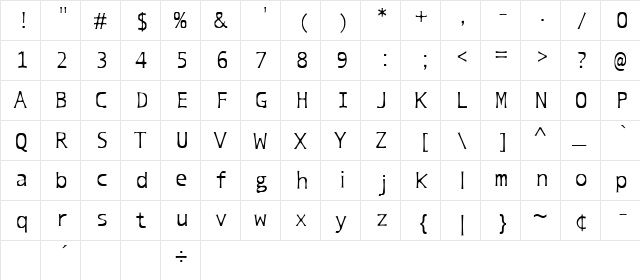
slightly warped Regular Font Preview
slightly warped Regular
slightly warped Regular Font Details
Design Context for slightly warped Typeface
slightly warped takes a measured approach to typography — its balanced proportions and neutral character make it a reliable workhorse for both digital and print work. The delicate stroke weight brings airiness and refinement to layouts.